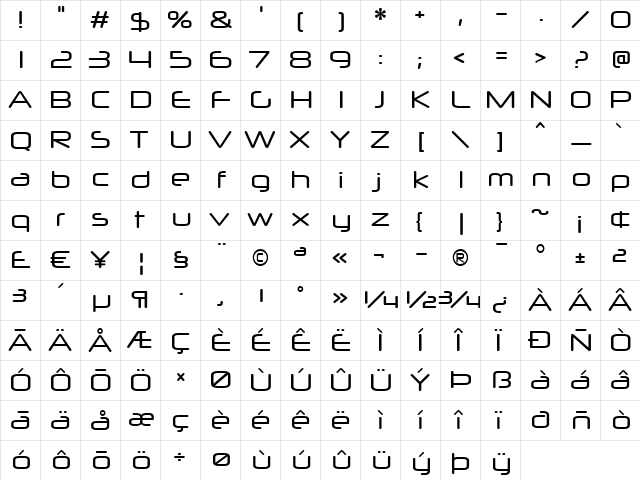
Neuropol X Free Regular
Design Context for Neuropol X Free Typeface
Neuropol X Free takes a measured approach to typography — its balanced proportions and neutral character make it a reliable workhorse for both digital and print work.